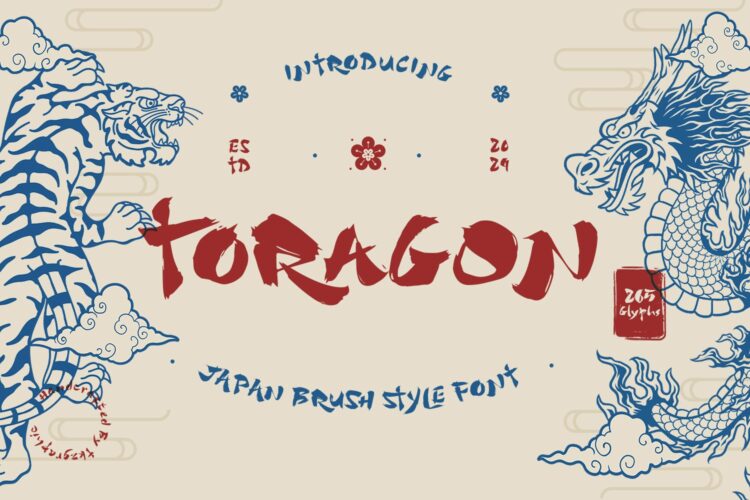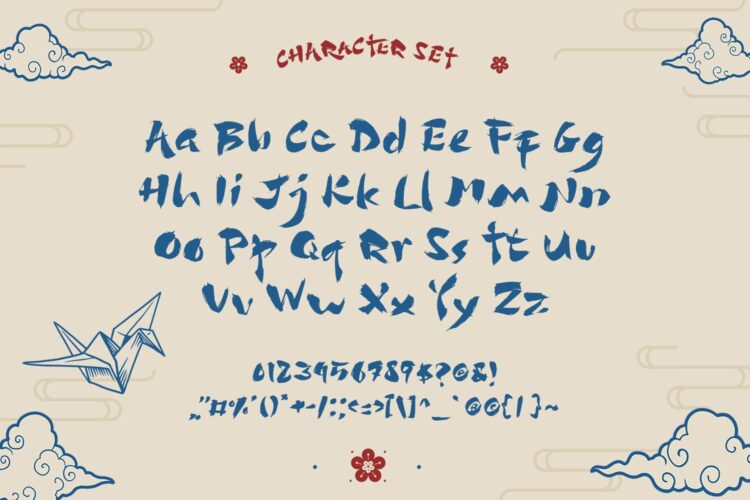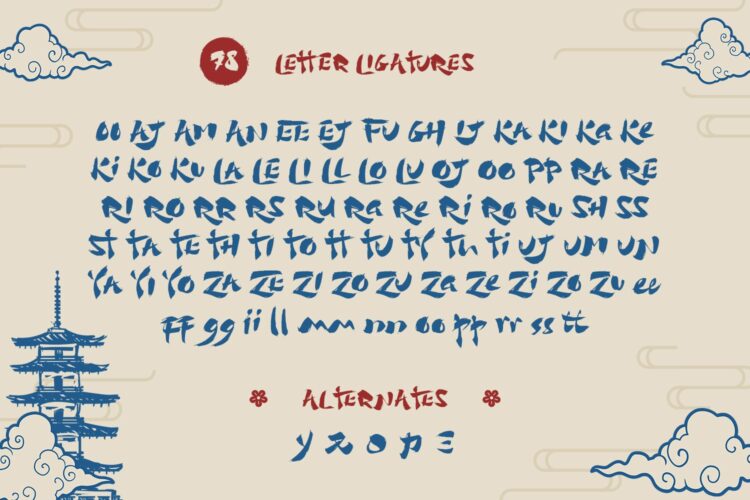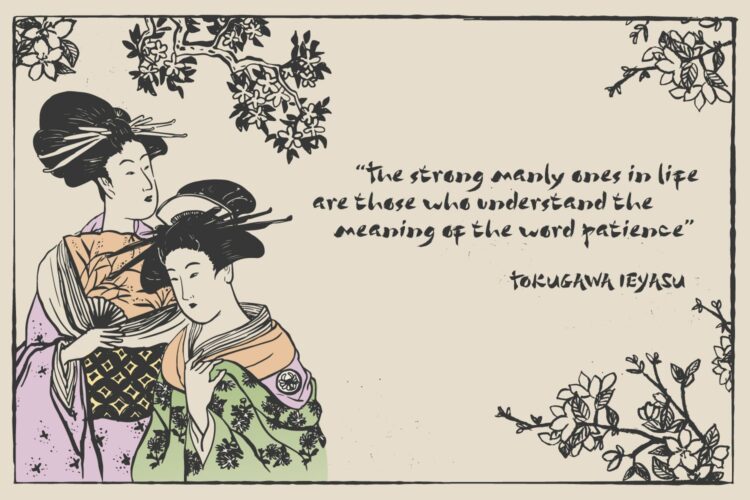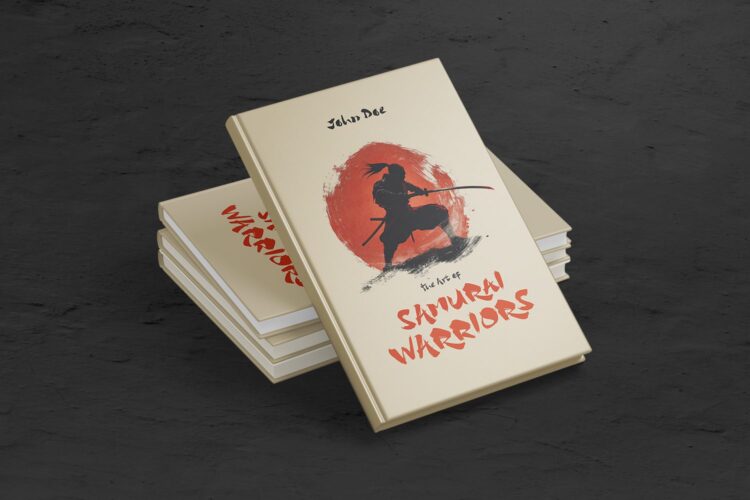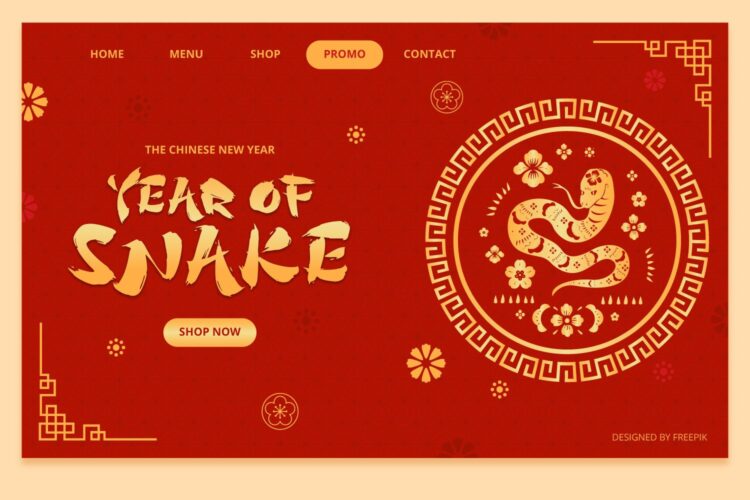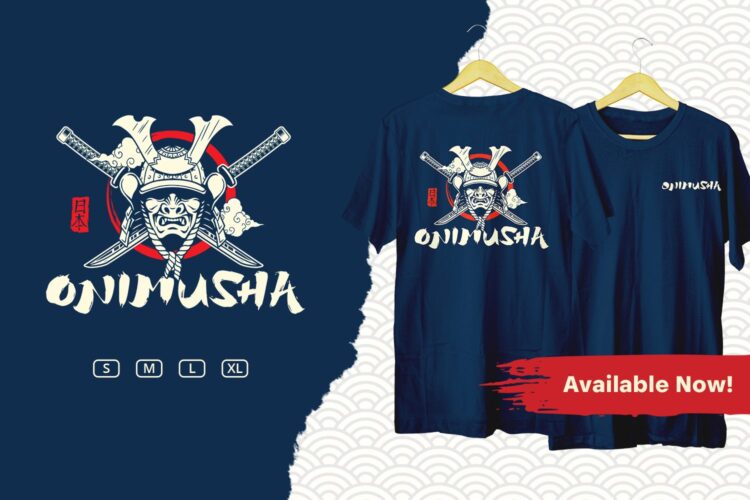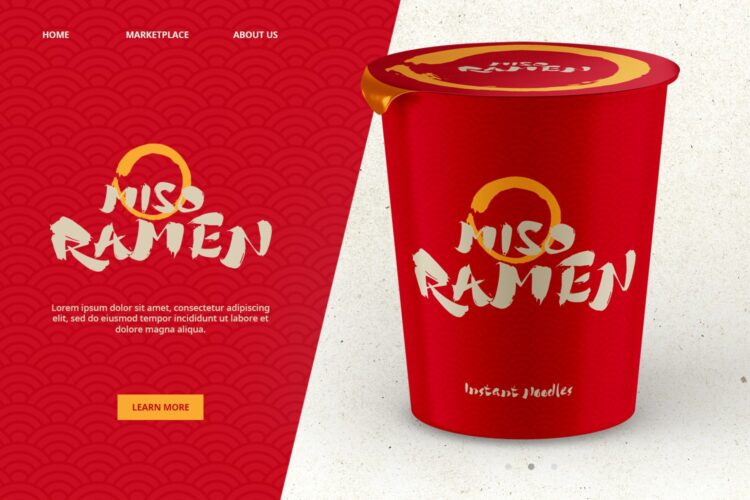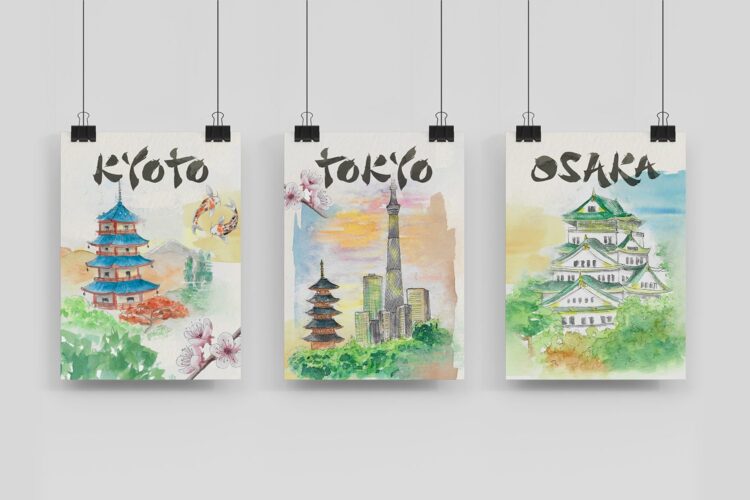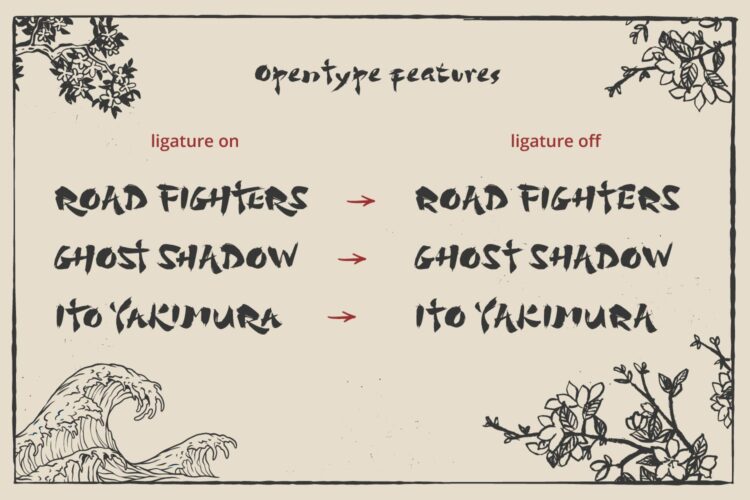
Japan Brush Style Font
Toragon
Toragon is inspired by the Japanese words for Tiger (Tora) and Dragon, symbolizing a powerful blend of strength and courage.
Toragon font is ideal not only for Japanese-themed designs but also for any Asian-inspired projects. Whether it’s logos, movie titles, game titles, posters, book designs, branding materials, or any other creative project, This font adds a unique and authentic touch.
Toragon display font includes Uppercase, Lowercase, Numbers, Multilanguage, Alternate and OpenType features to make your designs looks spectacular!
Features :
• Standards Characters
• Opentype (Alternates And Ligatures)
• Multilingual Support